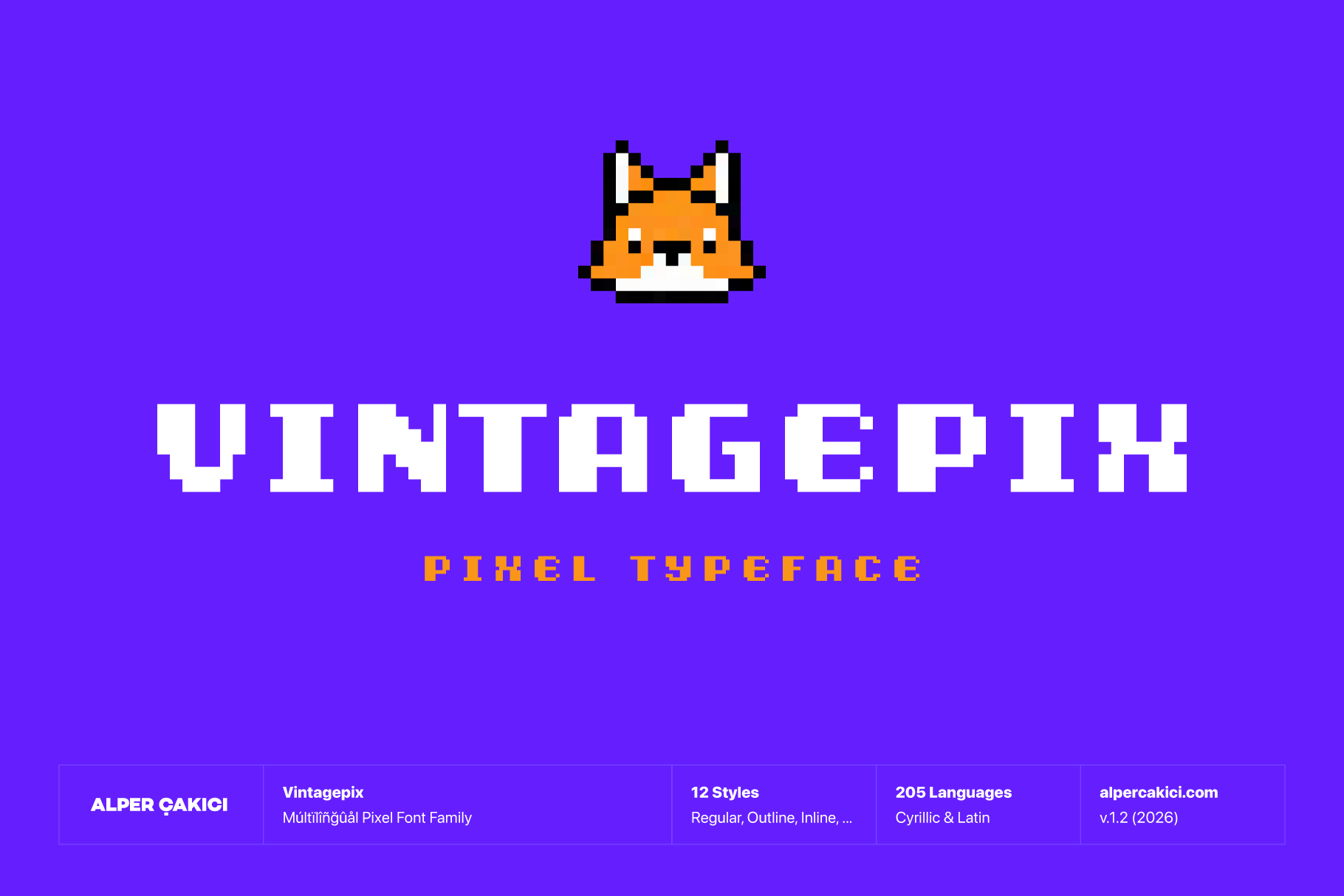
Vintagepix - Bold Pixel Typeface
Vintagepix is a bold pixel typeface family that blends classic video game aesthetics with strong geometric construction and contemporary usability. Inspired by arcade graphics, retro computer displays, early console typography, and digital signage, Vintagepix transforms the nostalgic language of pixels into a versatile font system designed for modern creative projects.
Built with crisp square forms, confident proportions, and carefully balanced spacing, Vintagepix delivers exceptional readability while preserving the authentic character of vintage bitmap lettering. Its bold structure makes it highly effective for headlines, logos, packaging, posters, branding, user interfaces, gaming projects, merchandise, social media graphics, and retro-inspired visual identities.
The family includes twelve coordinated styles, expanding its creative range far beyond a traditional pixel font. Circular, Rounded, Outline, Inline, and Shadow variations allow designers to create layered typographic compositions, dimensional effects, and distinctive display treatments while maintaining visual consistency across projects.
Despite its pixel-based construction, Vintagepix offers extensive multilingual support covering 205 Latin and Cyrillic languages, making it suitable for international branding and publishing. With 551 glyphs and broad language coverage, it combines nostalgic charm with professional functionality.
Whether you're creating retro gaming artwork, digital-inspired branding, technology-focused graphics, arcade-themed packaging, or bold display typography, Vintagepix delivers the perfect balance of vintage pixel aesthetics and contemporary design flexibility.